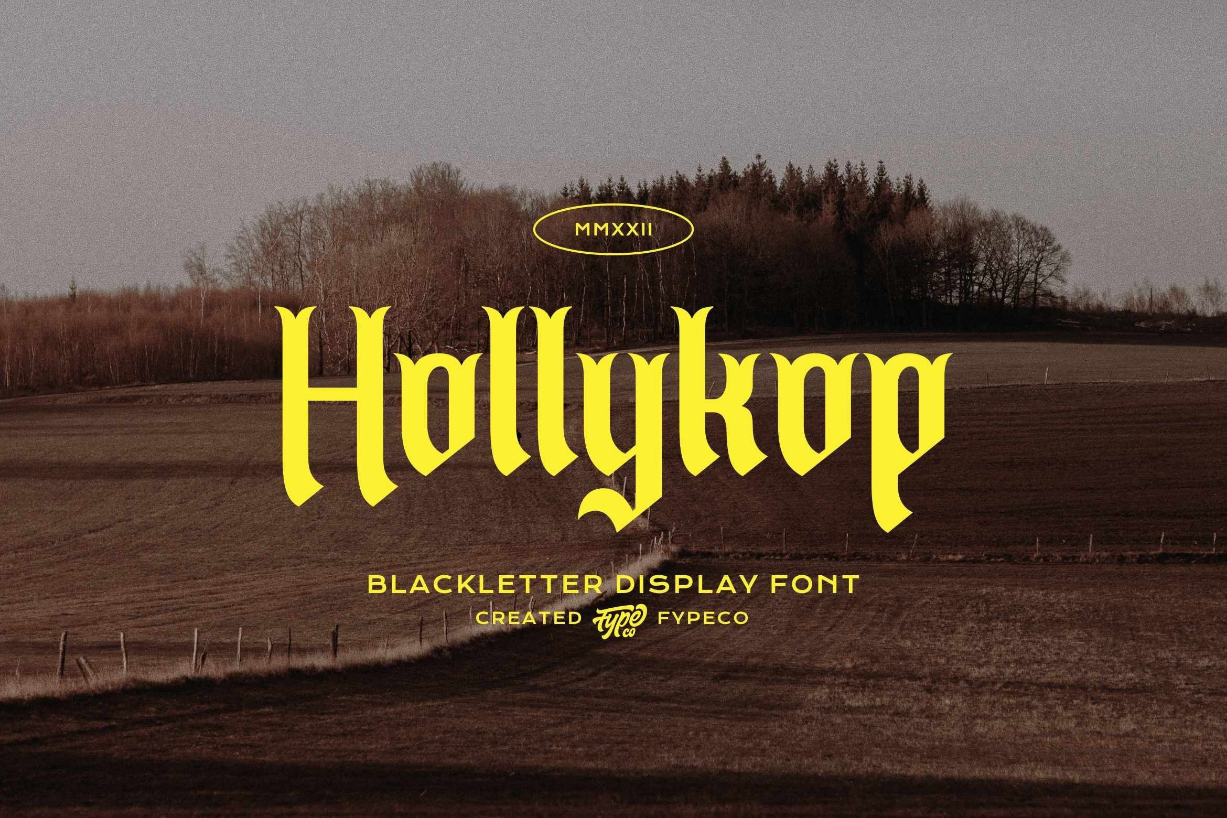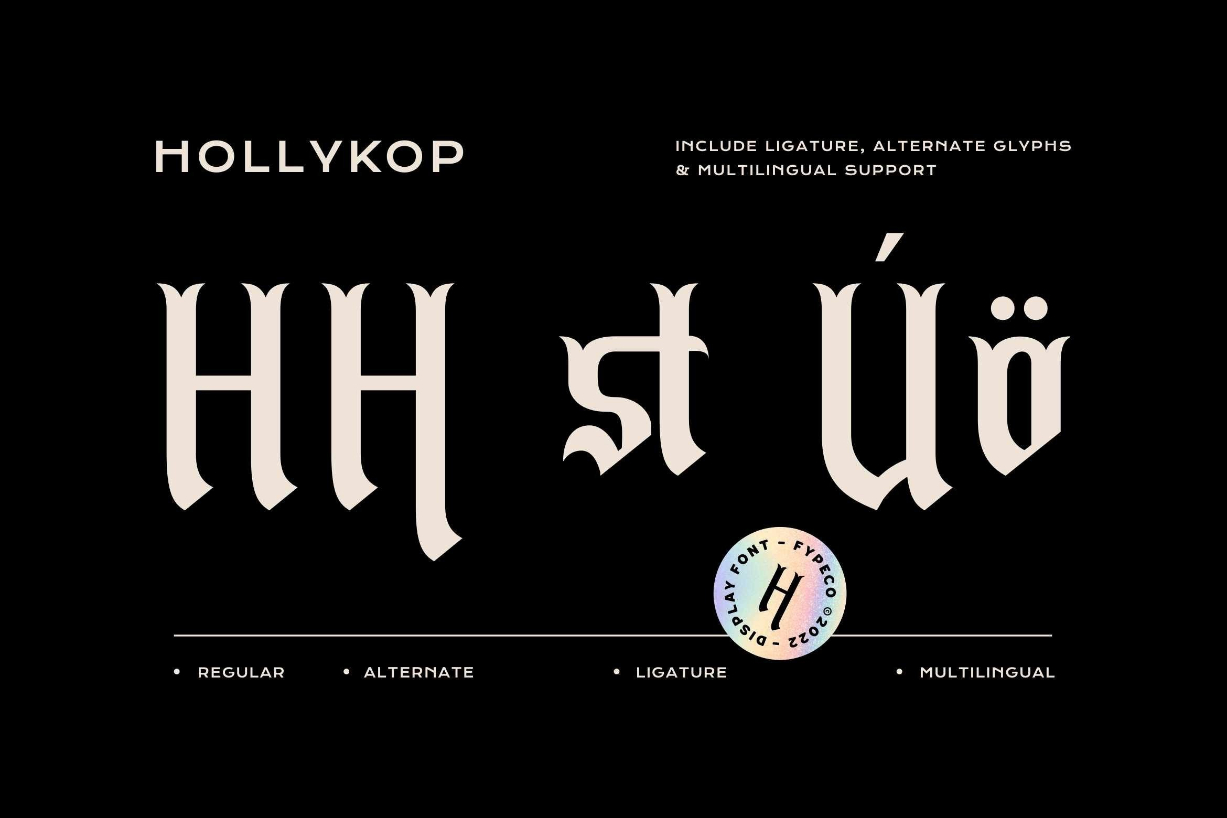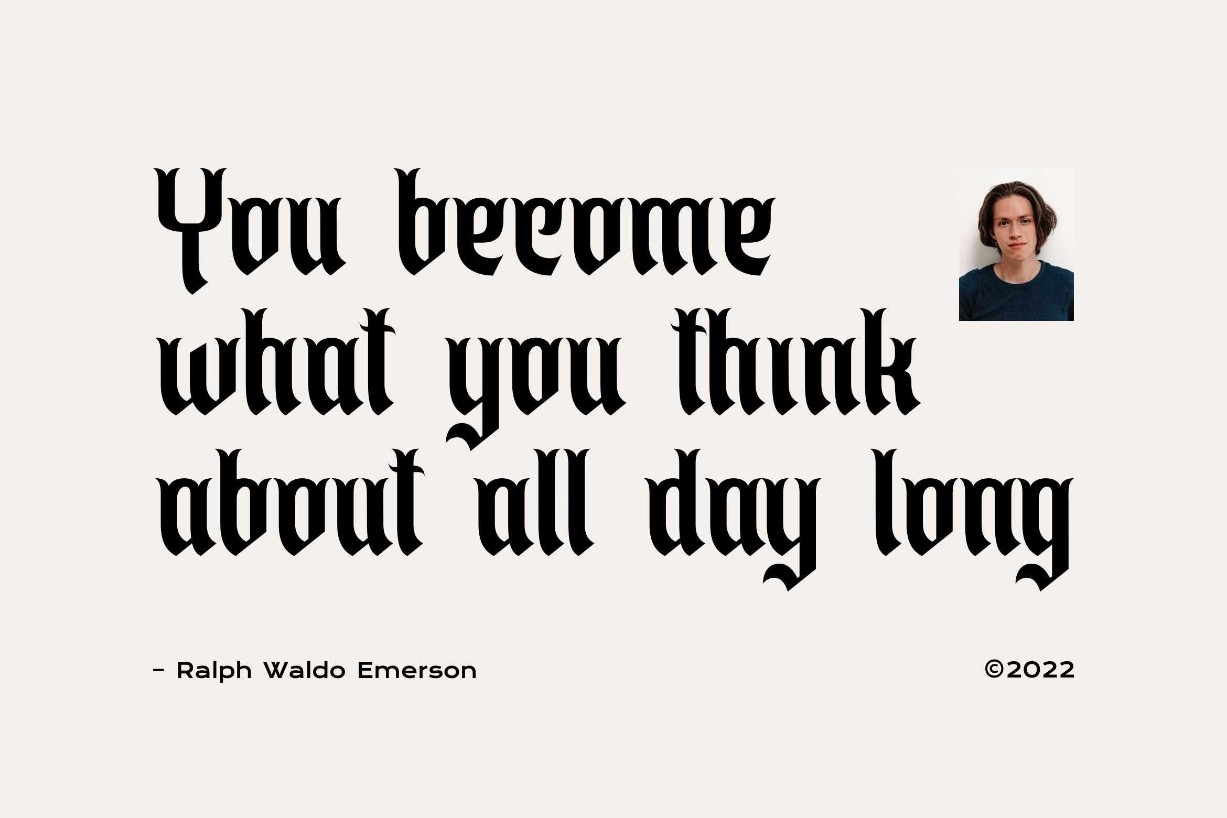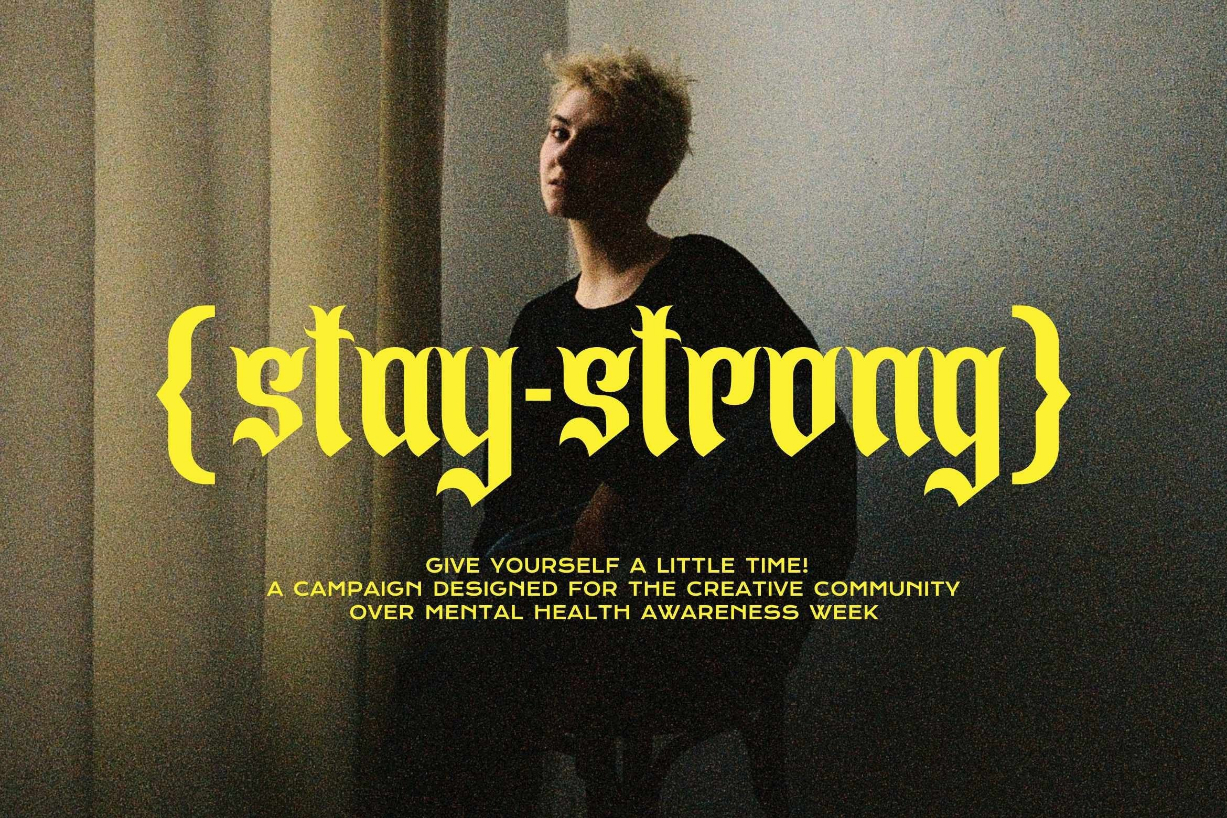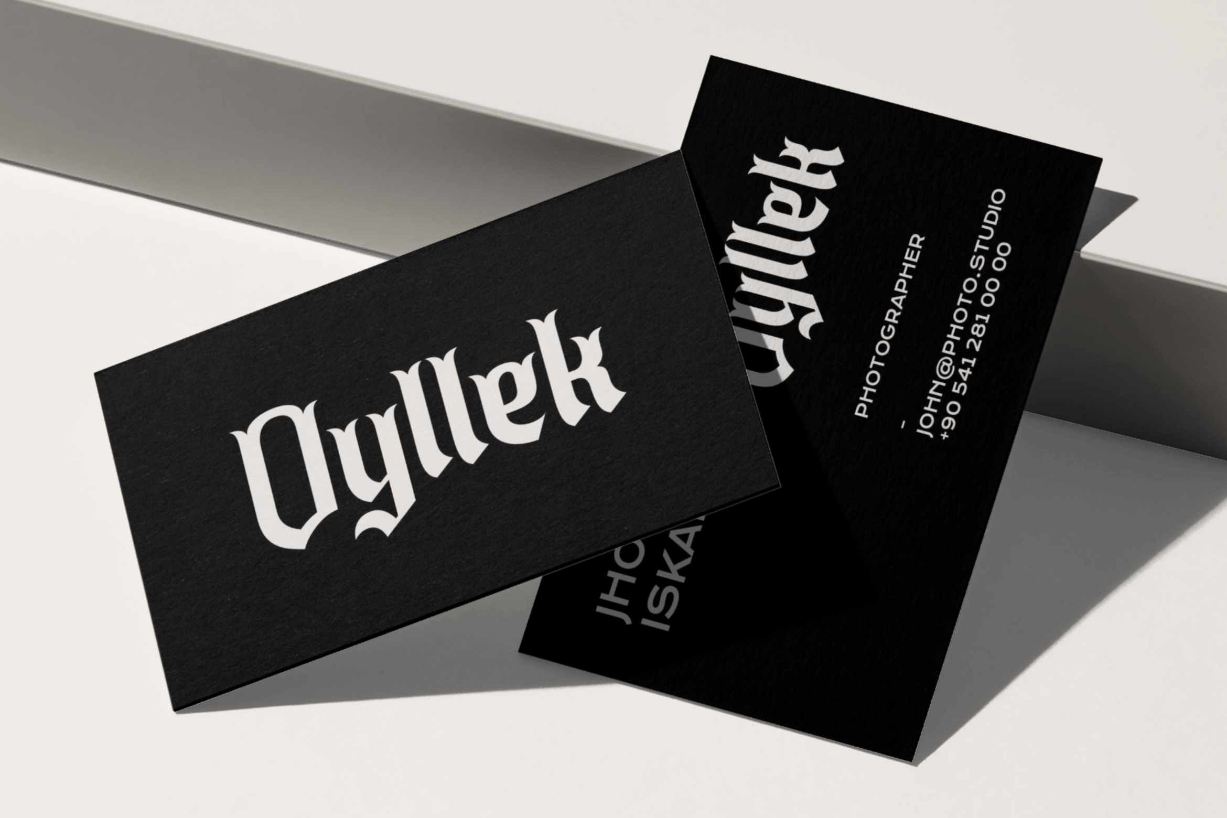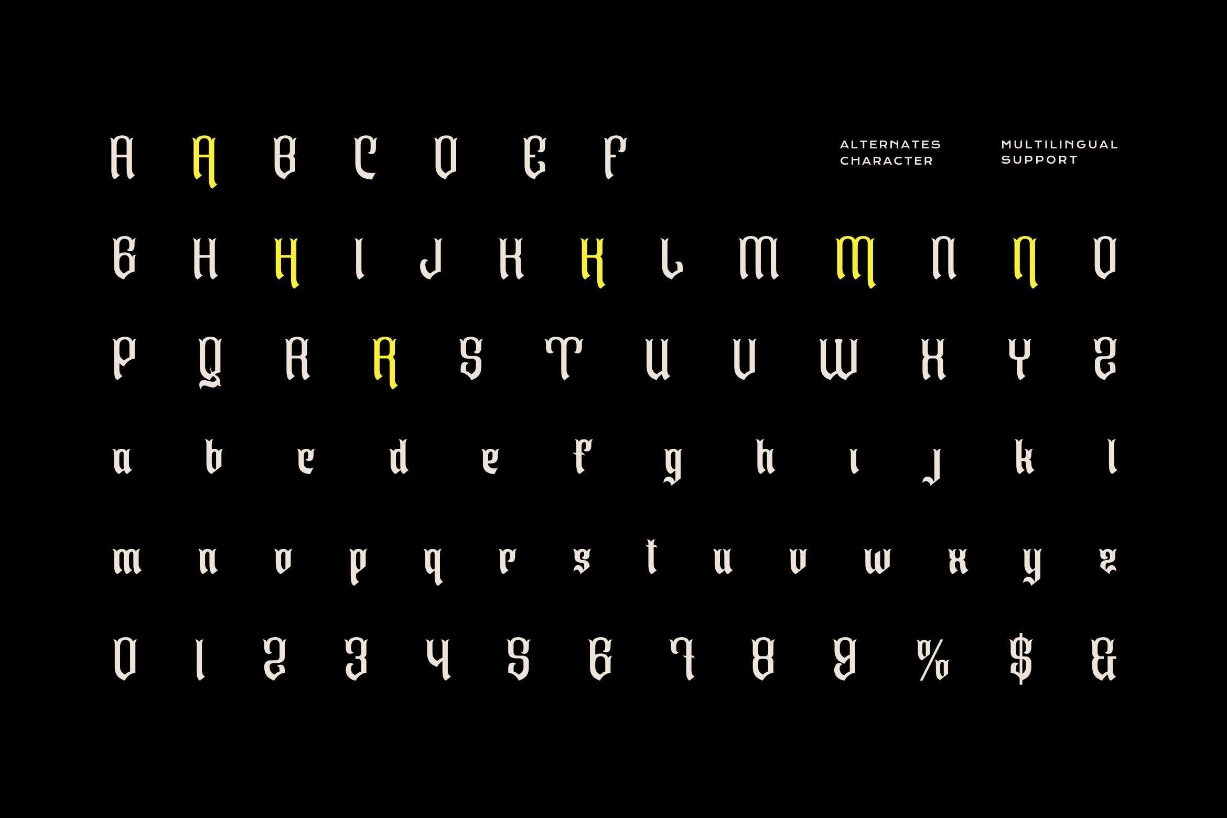
Hollykop Font
About Hollykop Font
Hollykop is a blackletter font with a modern style. This font is perfect for your design needs. Besides that, this font is fantastic for poster designs, branding, packaging, logos, apparel (t-shirts, jackets, etc.), cards, tattoo, or other design needs.